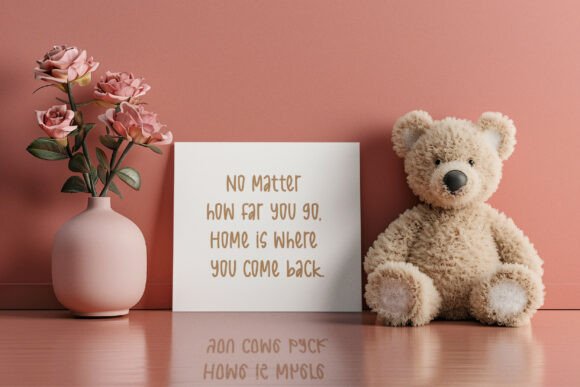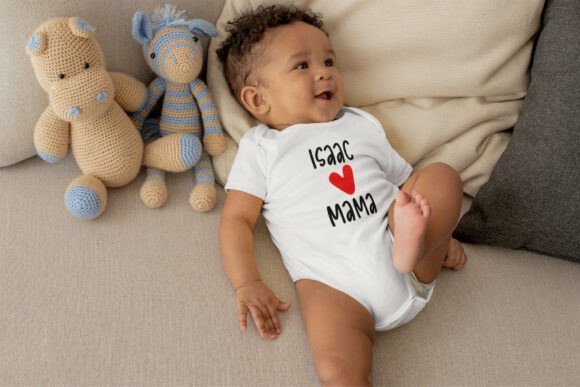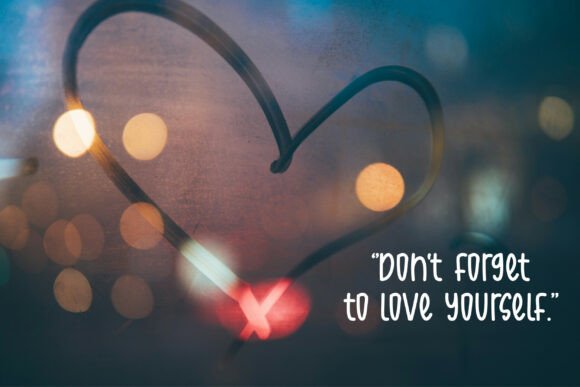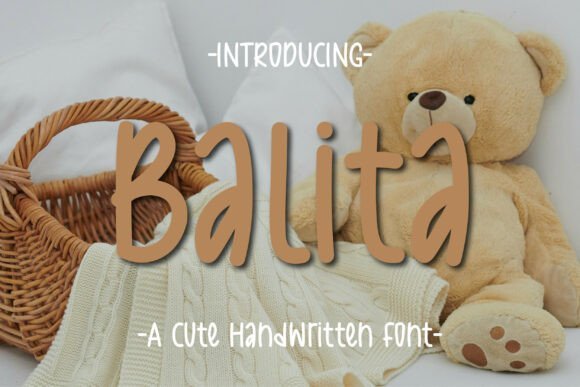
Introduction to Balita Font
Balita is a charming, one-of-a-kind, handwritten font.
Its playful strokes make it a perfect fit for countless creative applications – from enchanting children’s birthday invitations to vibrant book covers ripe for young explorers Picture this beautiful typeface adding a touch of whimsy to quotes on cozy merchandise or ushering in a new academic year with an uplifting β€˜Back to School’ message.
Key Features of Balita Font
Why Choose Balita Font?